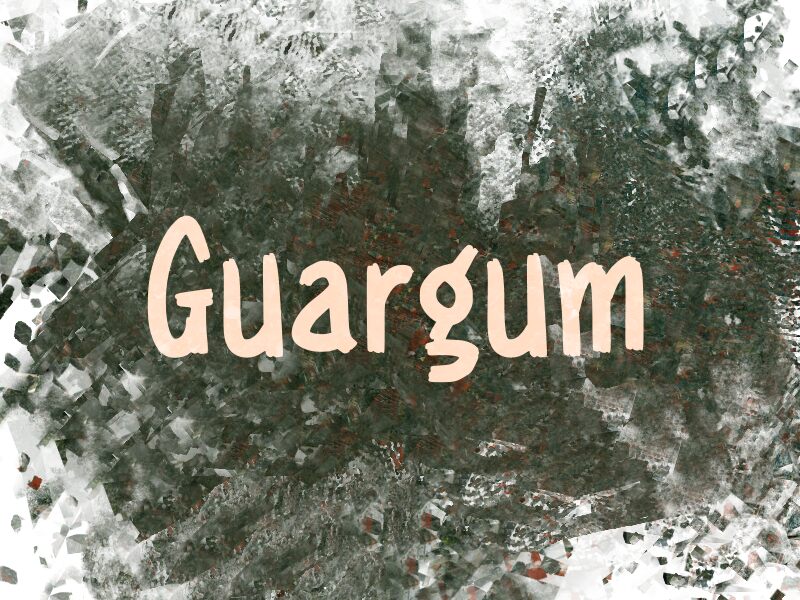
Guargum
Guargum captivates with its fresh, handwritten style that exudes personality and warmth. The condensed design lends an air of sophistication while ensuring each letter maintains a lively and approachable character. Its playful curves and lively strokes give it a unique charm, making it perfect for projects that demand attention.
This versatile font shines in branding, invitations, and social media graphics where a touch of creativity is essential. Guargum's aesthetic appeal is enhanced by its ability to convey emotion effortlessly, whether used in casual contexts or more polished designs. With its delightful flair and inviting presence, Guargum transforms ordinary text into engaging visuals that resonate with audiences.